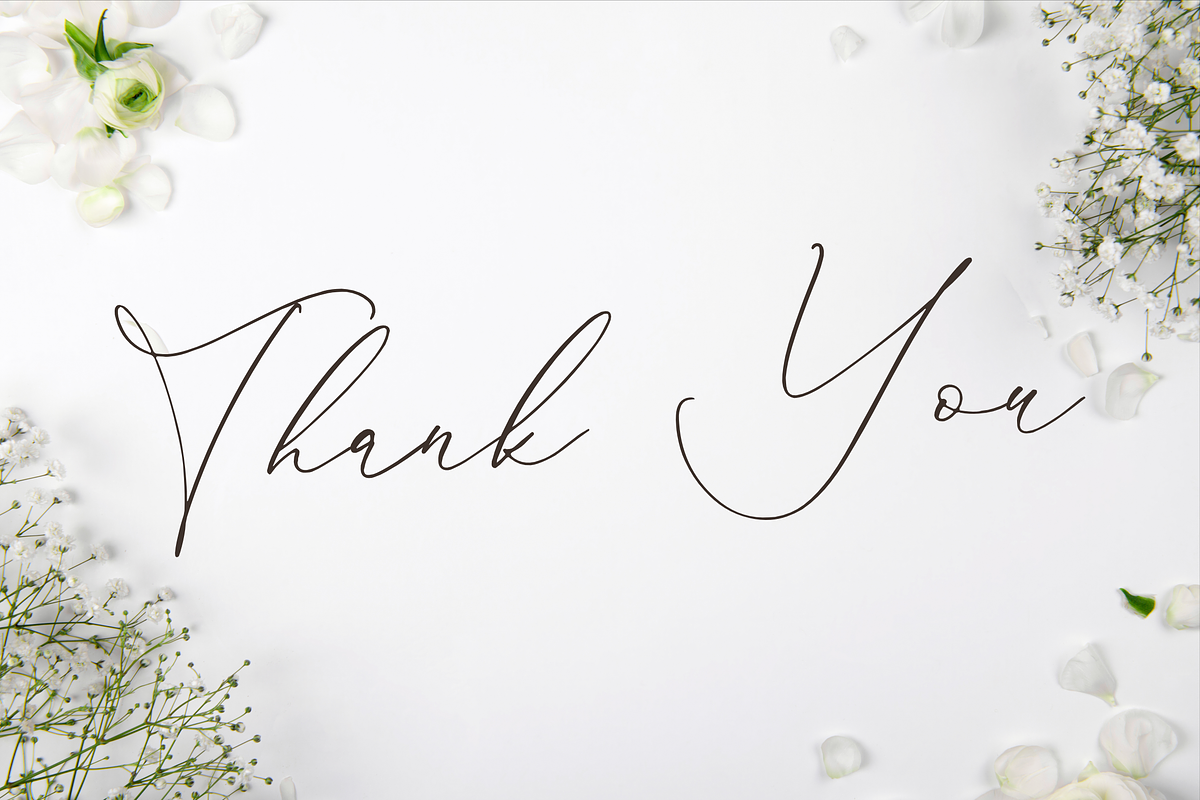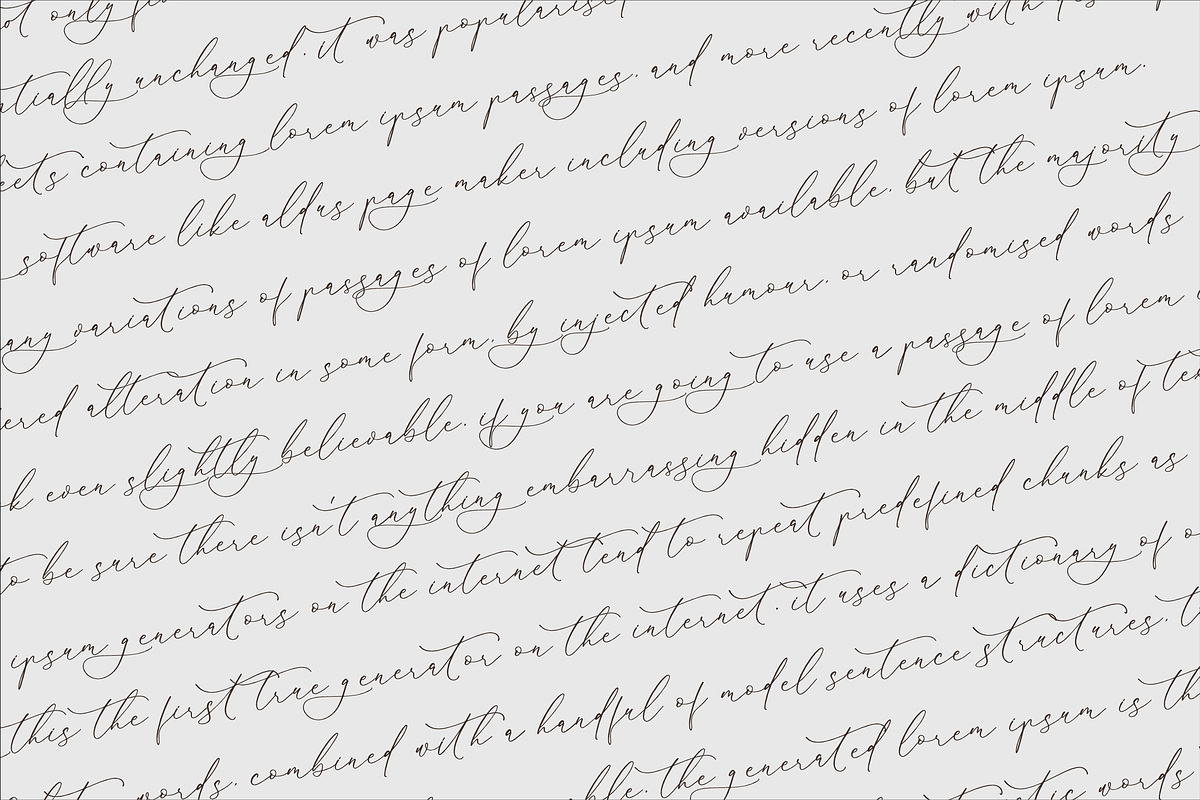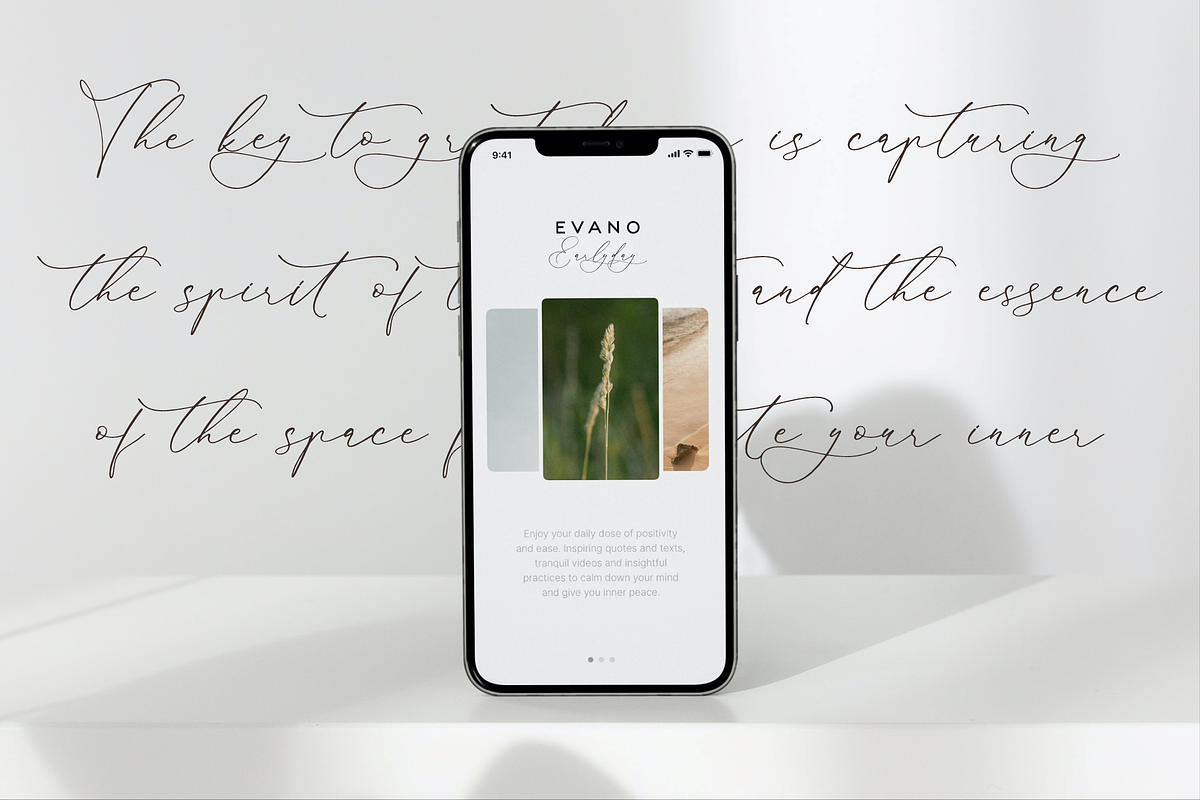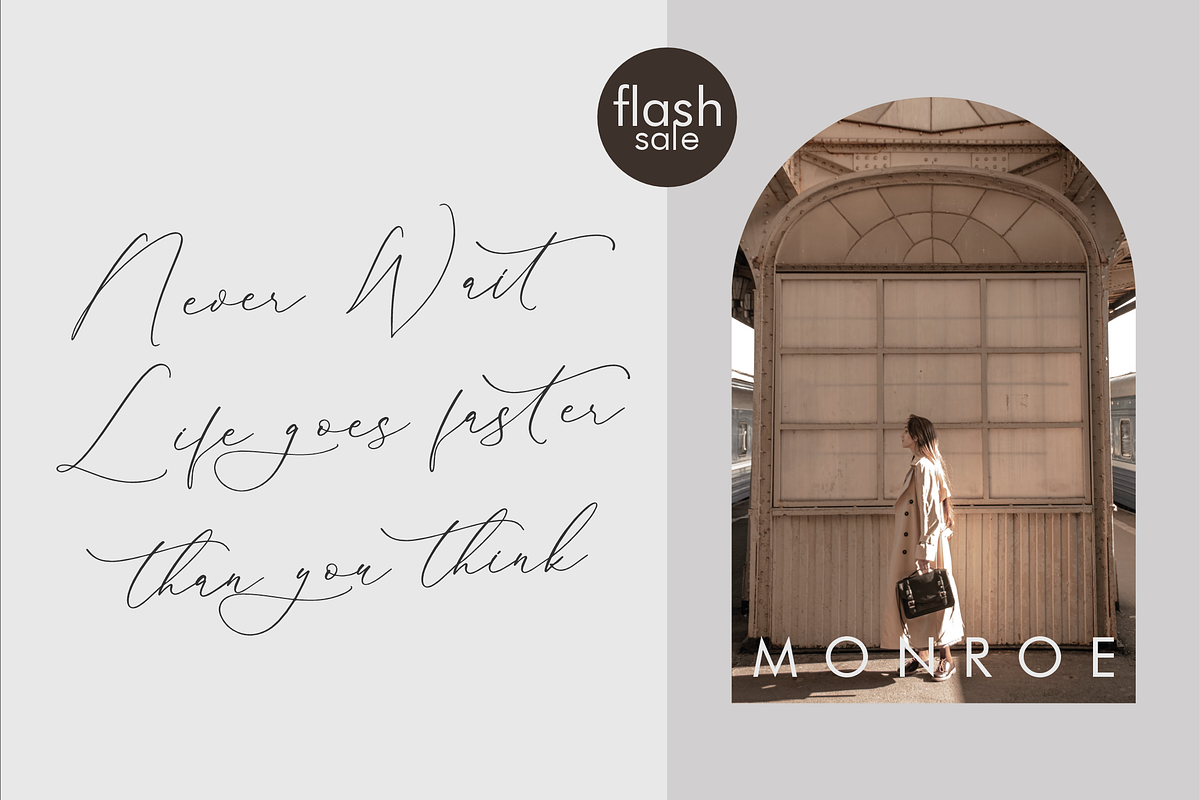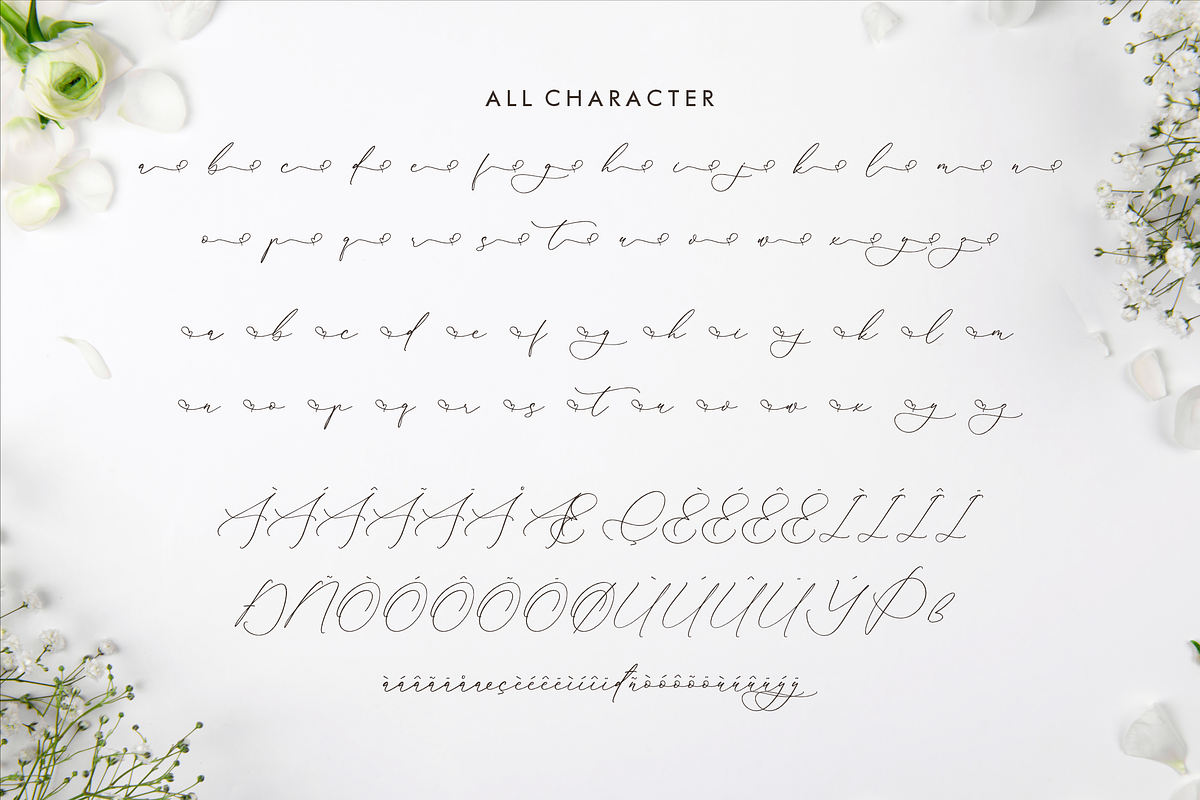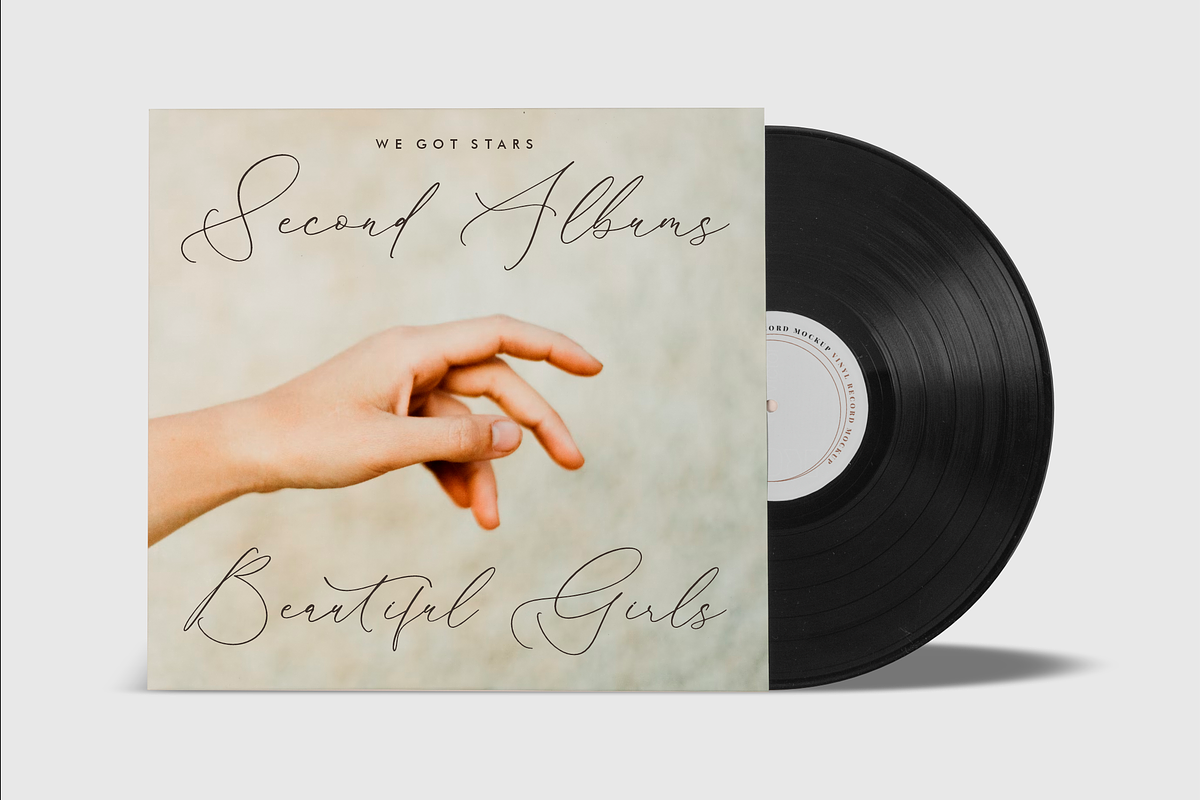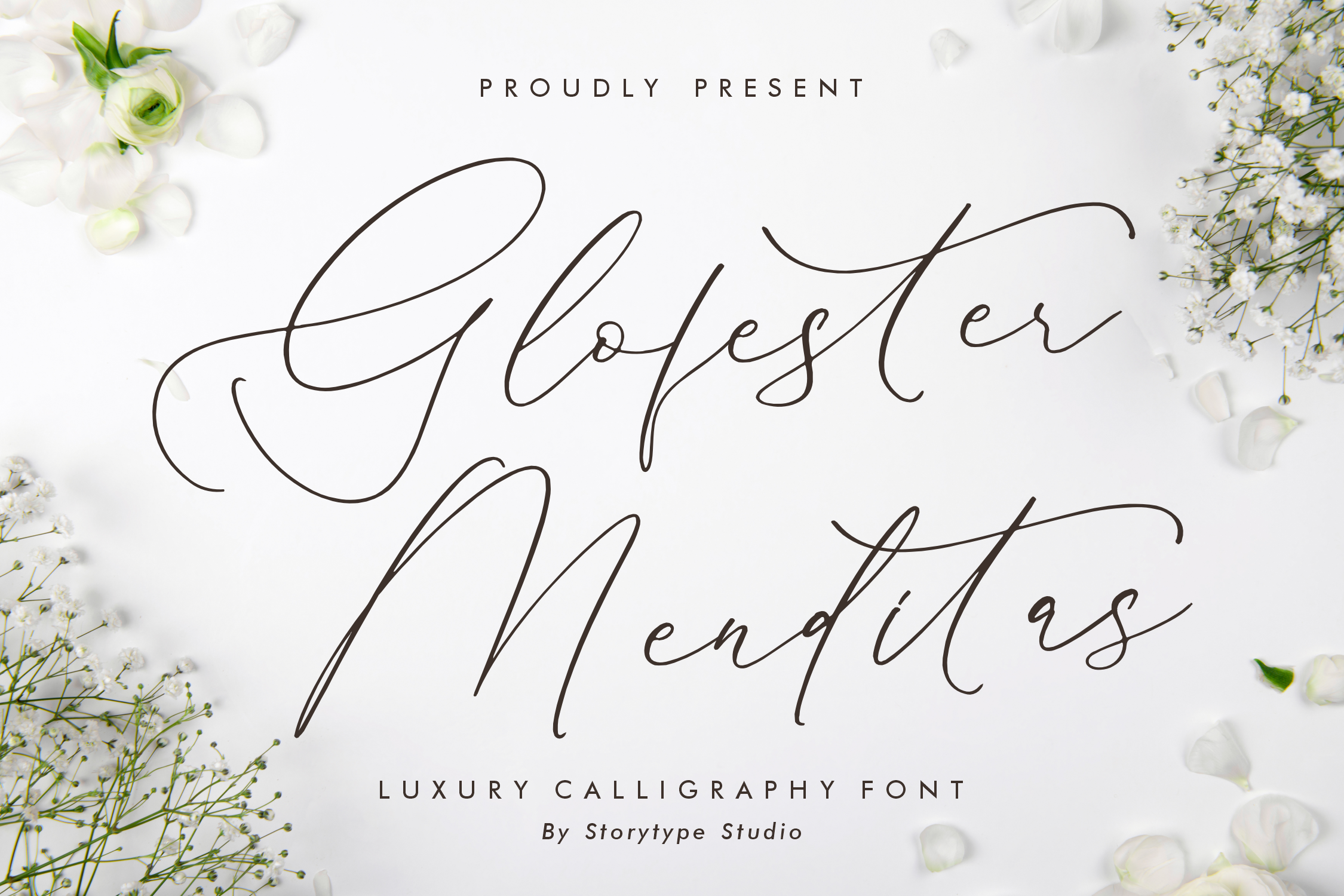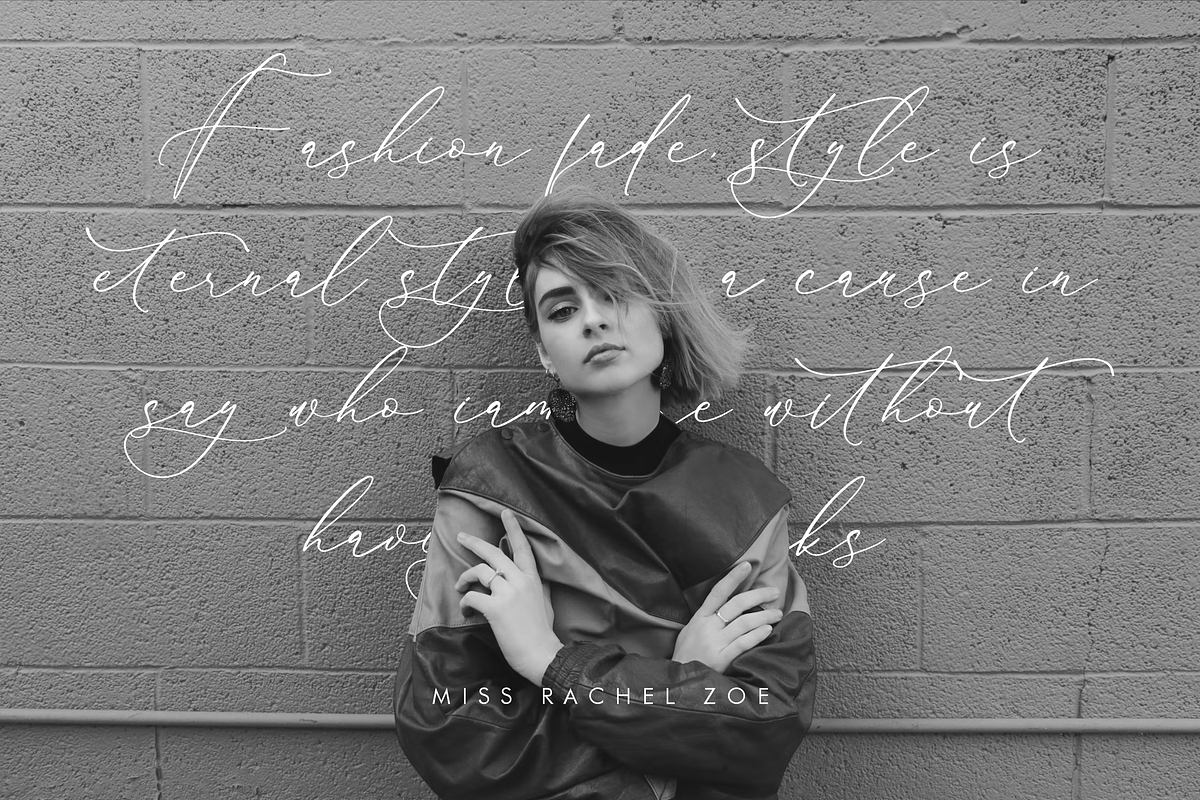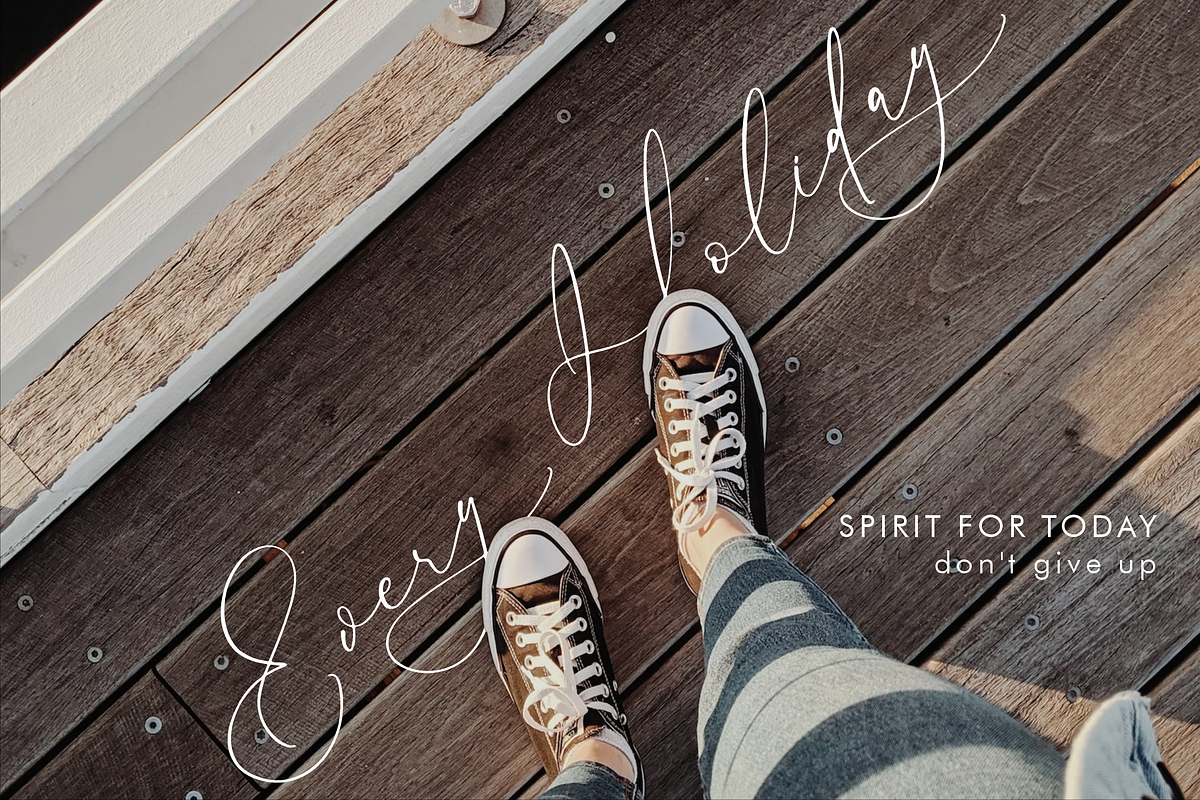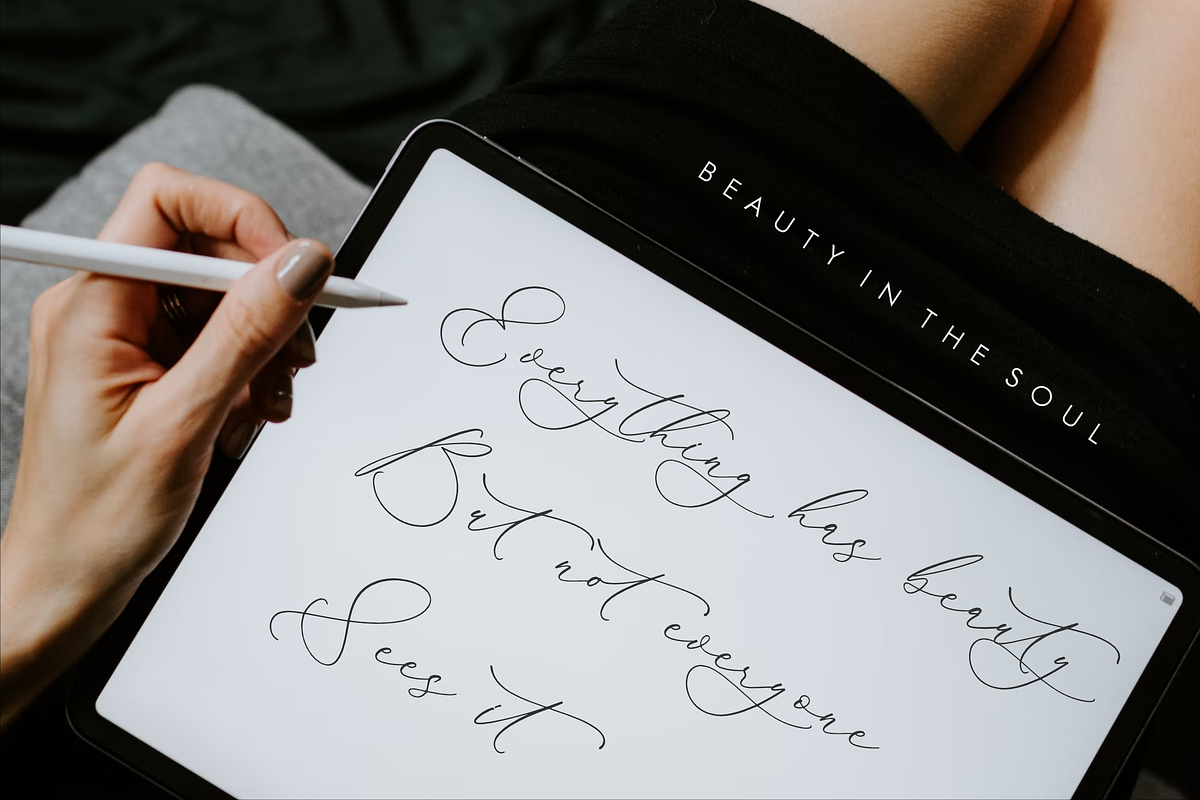
Glofester Menditas Luxury Font
Proudly present Glofester Menditas - Luxury Calligraphy Font , created by Storytype, A luxury script that has own unique style & modern look. This typeface is perfect for an elegant & luxury logo, book or movie title design, fashion brand, magazine, clothes, lettering, quotes, and so much more.